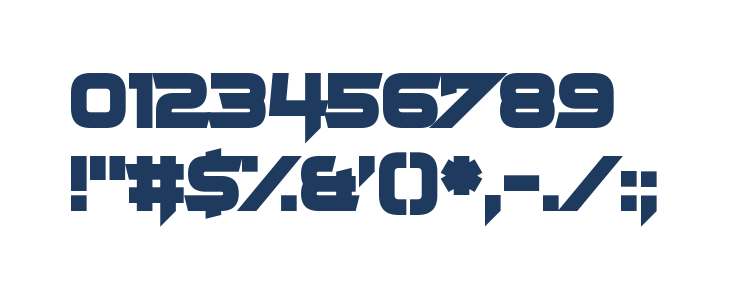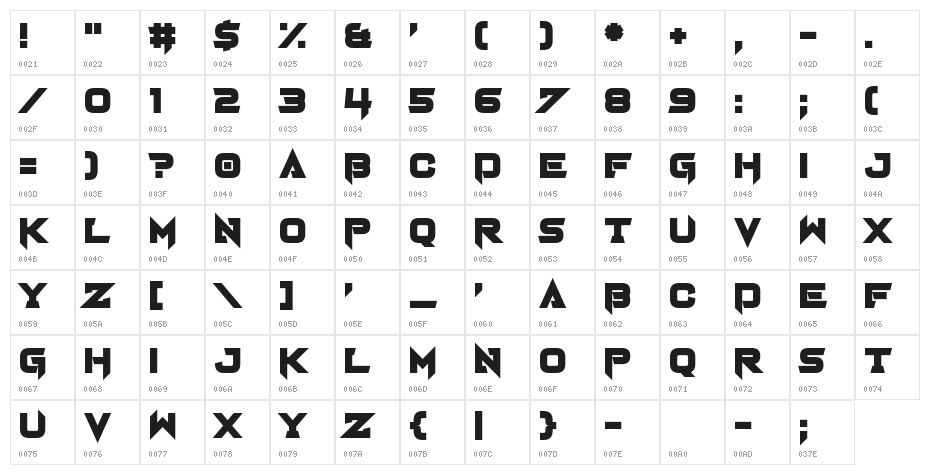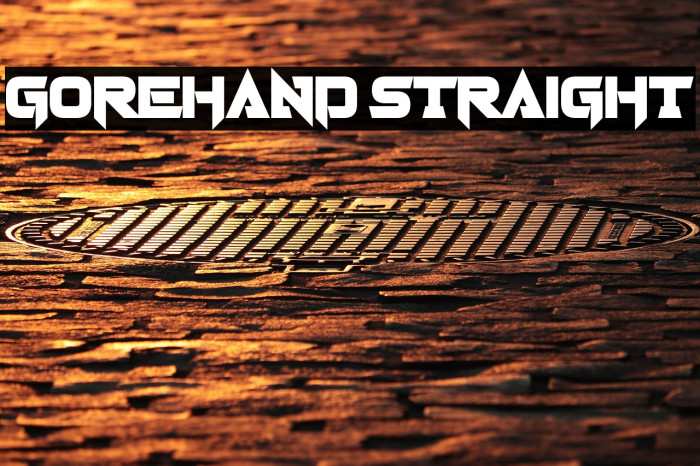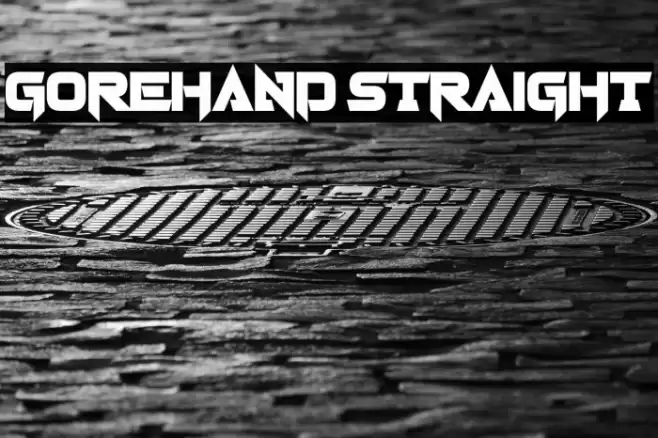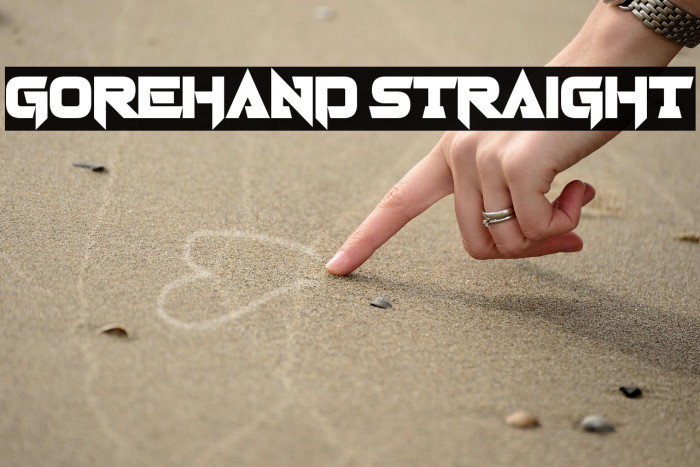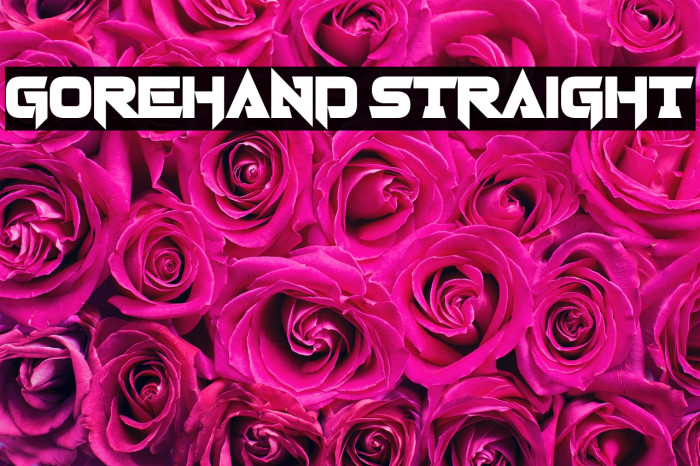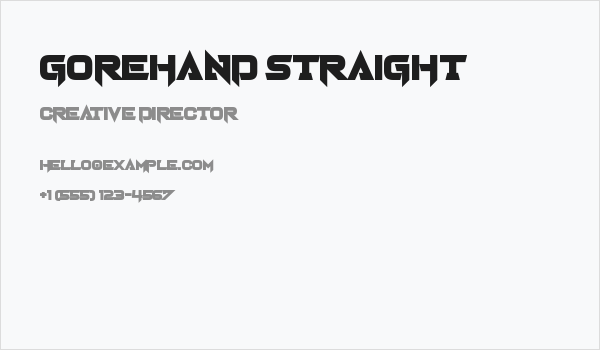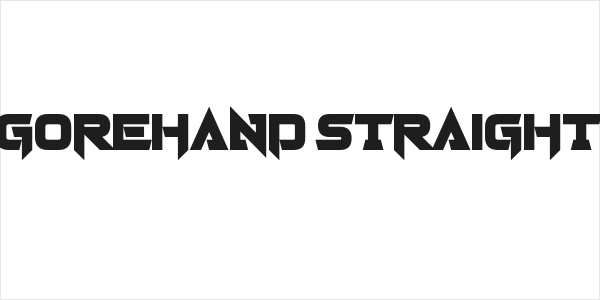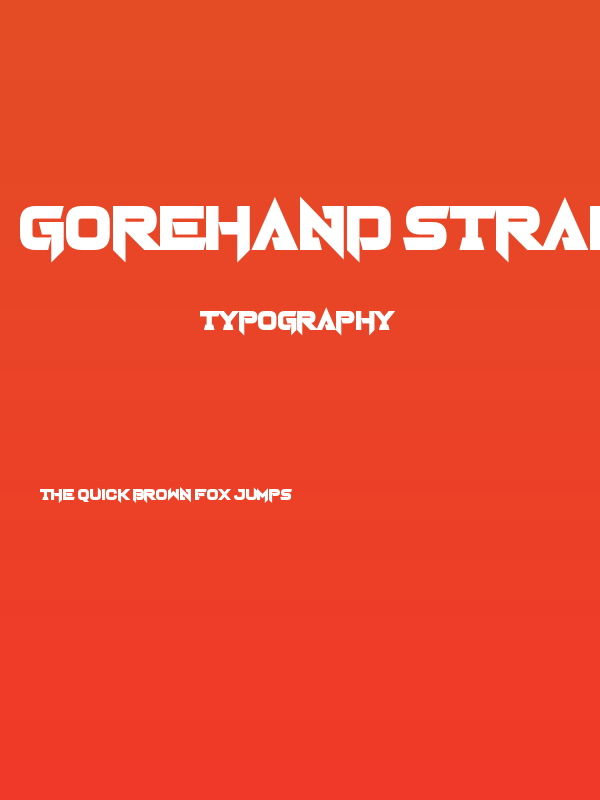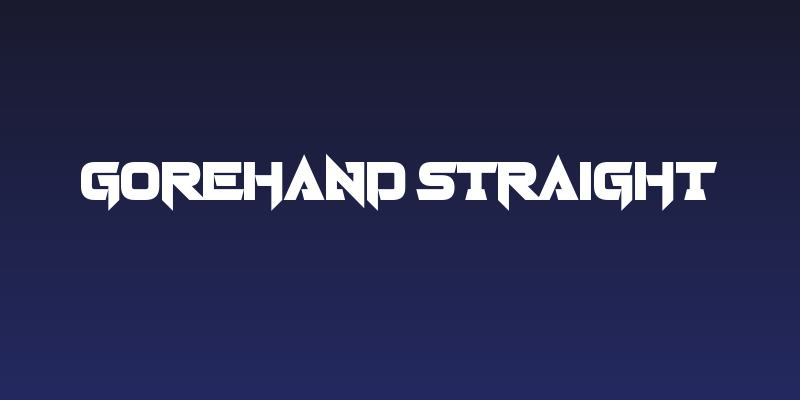
Gorehand Straight Font
Gorehand Straight Description
This font features a bold, angular design with sharp edges and a futuristic aesthetic. The characters are heavily stylized, with geometric shapes and pointed terminals that create a sense of movement and aggression. The uppercase letters are particularly striking, with a uniform height and width that gives them a blocky, imposing appearance. The numbers and special characters maintain this bold style, ensuring consistency across all glyphs. This font is ideal for projects that require a strong, impactful visual presence.
| Overall Style | Futuristic, Aggressive |
| Proposed Projects | Ideal for video game titles, movie posters, sports team logos, and any project needing a strong, dynamic visual impact. |